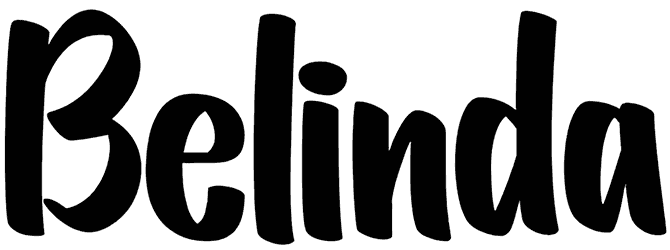
Belinda Font
Belinda is what you need to finish your design projects, and it can end your search. This script font has a natural style that adds a personal touch to your artwork and makes it more memorable.
You can use this handwritten font in letters, symbols, books, and posters to convey your message in a subtle, magical way. So download it, and you will get your result in a few minutes.